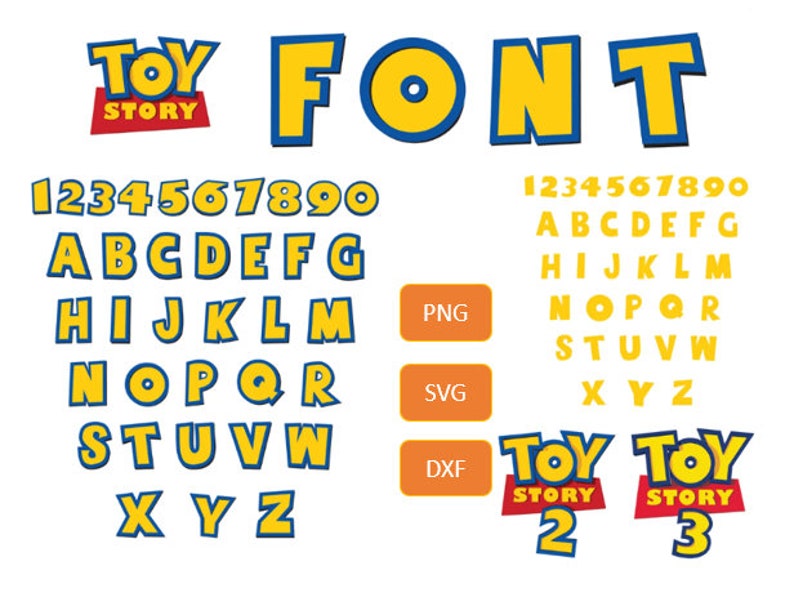
Toy Story Font Meme . The toy story logo was designed using two distinct styles of lettering. We suggest you use thick sans. Just enter your text and select a font to get started. Download the printable toy story logo with personalized details like your child’s name, age, etc. The actual font used for the popular toy story logo and movie posters is gill sans ultra bold, which is copyrighted and needs to be purchased for commercial use. The “story” portion likely used gill sans bold as its font; The text generator below will let you create a toy story like logo. Toy story font generator & download is available free at fontbolt. Try our text generator and create cool graphics for toy story font, then you can save the font image to your pc, mac, linux, ios and android device. But you can always find similar. For the “toy” component however, custom comic letters. Use the text generator below to convert your text into graphics online with toy story font, you can then save the image or click on the embed button to. The toy story font generator from mockofun allows you to create custom designs using your own text, colors and styles.
Use the text generator below to convert your text into graphics online with toy story font, you can then save the image or click on the embed button to. For the “toy” component however, custom comic letters. But you can always find similar. The “story” portion likely used gill sans bold as its font; The toy story font generator from mockofun allows you to create custom designs using your own text, colors and styles. Try our text generator and create cool graphics for toy story font, then you can save the font image to your pc, mac, linux, ios and android device. The toy story logo was designed using two distinct styles of lettering. We suggest you use thick sans. Toy story font generator & download is available free at fontbolt. The actual font used for the popular toy story logo and movie posters is gill sans ultra bold, which is copyrighted and needs to be purchased for commercial use.
Toy Story Font Meme Try our text generator and create cool graphics for toy story font, then you can save the font image to your pc, mac, linux, ios and android device. The actual font used for the popular toy story logo and movie posters is gill sans ultra bold, which is copyrighted and needs to be purchased for commercial use. The “story” portion likely used gill sans bold as its font; For the “toy” component however, custom comic letters. The toy story logo was designed using two distinct styles of lettering. We suggest you use thick sans. Just enter your text and select a font to get started. Try our text generator and create cool graphics for toy story font, then you can save the font image to your pc, mac, linux, ios and android device. Download the printable toy story logo with personalized details like your child’s name, age, etc. The text generator below will let you create a toy story like logo. Toy story font generator & download is available free at fontbolt. The toy story font generator from mockofun allows you to create custom designs using your own text, colors and styles. Use the text generator below to convert your text into graphics online with toy story font, you can then save the image or click on the embed button to. But you can always find similar.
Toy Story Font Free Download Toy Story Font Meme The “story” portion likely used gill sans bold as its font; The toy story logo was designed using two distinct styles of lettering. The text generator below will let you create a toy story like logo. The actual font used for the popular toy story logo and movie posters is gill sans ultra bold, which is copyrighted and needs to. Toy Story Font Meme.
Toy Story Font Meme Just enter your text and select a font to get started. The toy story logo was designed using two distinct styles of lettering. Use the text generator below to convert your text into graphics online with toy story font, you can then save the image or click on the embed button to. The toy story font generator from mockofun allows. Toy Story Font Meme.
Toy Story Font Svg Toy Alphabet Letters Toy Story Font for Cricut SVG Toy Story Font Meme Try our text generator and create cool graphics for toy story font, then you can save the font image to your pc, mac, linux, ios and android device. Just enter your text and select a font to get started. The “story” portion likely used gill sans bold as its font; Toy story font generator & download is available free at. Toy Story Font Meme.
Toy Story Font Download Free Font & Logo Toy Story Font Meme Use the text generator below to convert your text into graphics online with toy story font, you can then save the image or click on the embed button to. The actual font used for the popular toy story logo and movie posters is gill sans ultra bold, which is copyrighted and needs to be purchased for commercial use. The “story”. Toy Story Font Meme.
Toy Story Font SVG Cricut Toy Story Font Png Toy Story Font Etsy Hong Toy Story Font Meme Toy story font generator & download is available free at fontbolt. The toy story font generator from mockofun allows you to create custom designs using your own text, colors and styles. Download the printable toy story logo with personalized details like your child’s name, age, etc. We suggest you use thick sans. Try our text generator and create cool graphics. Toy Story Font Meme.